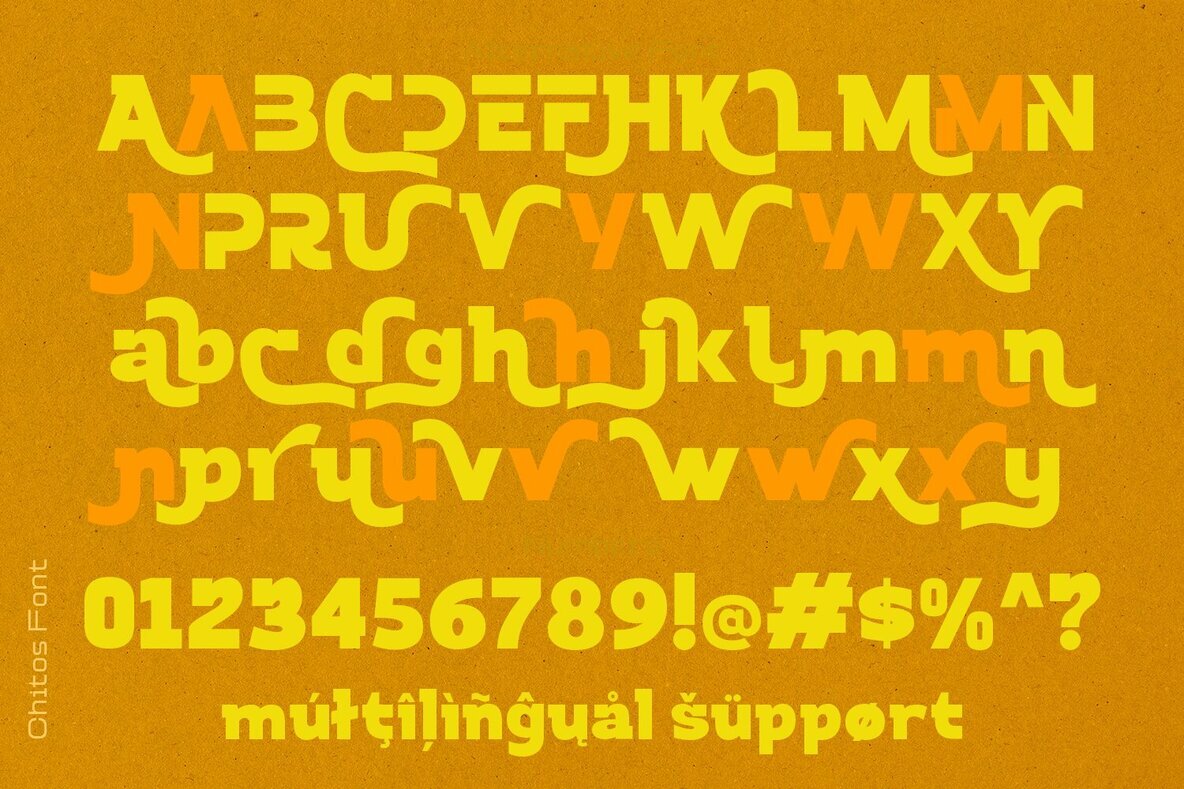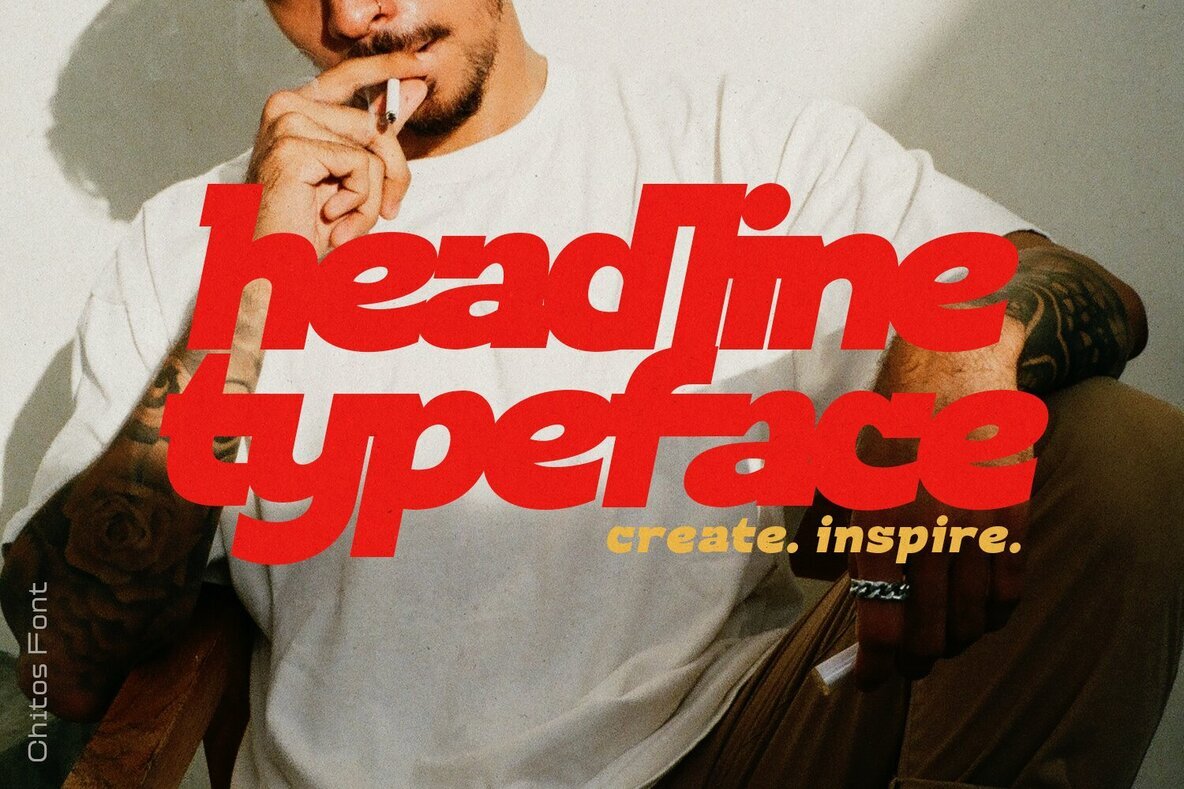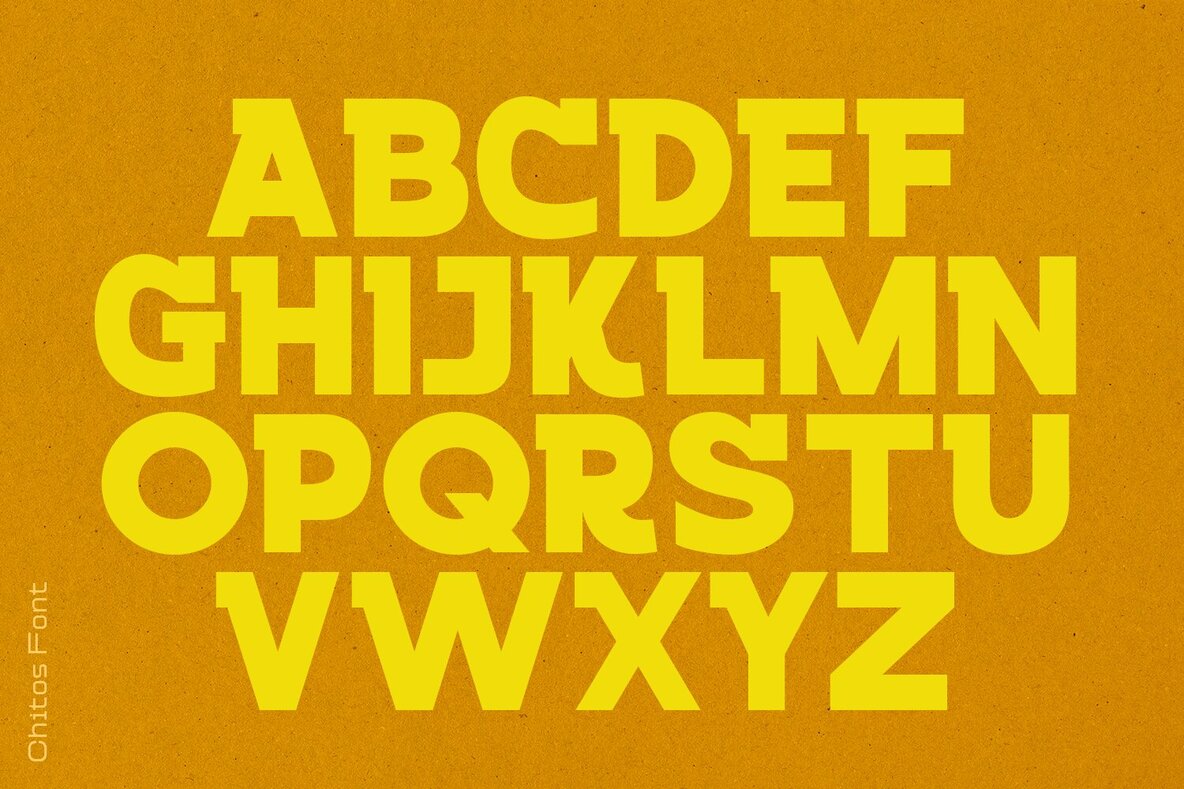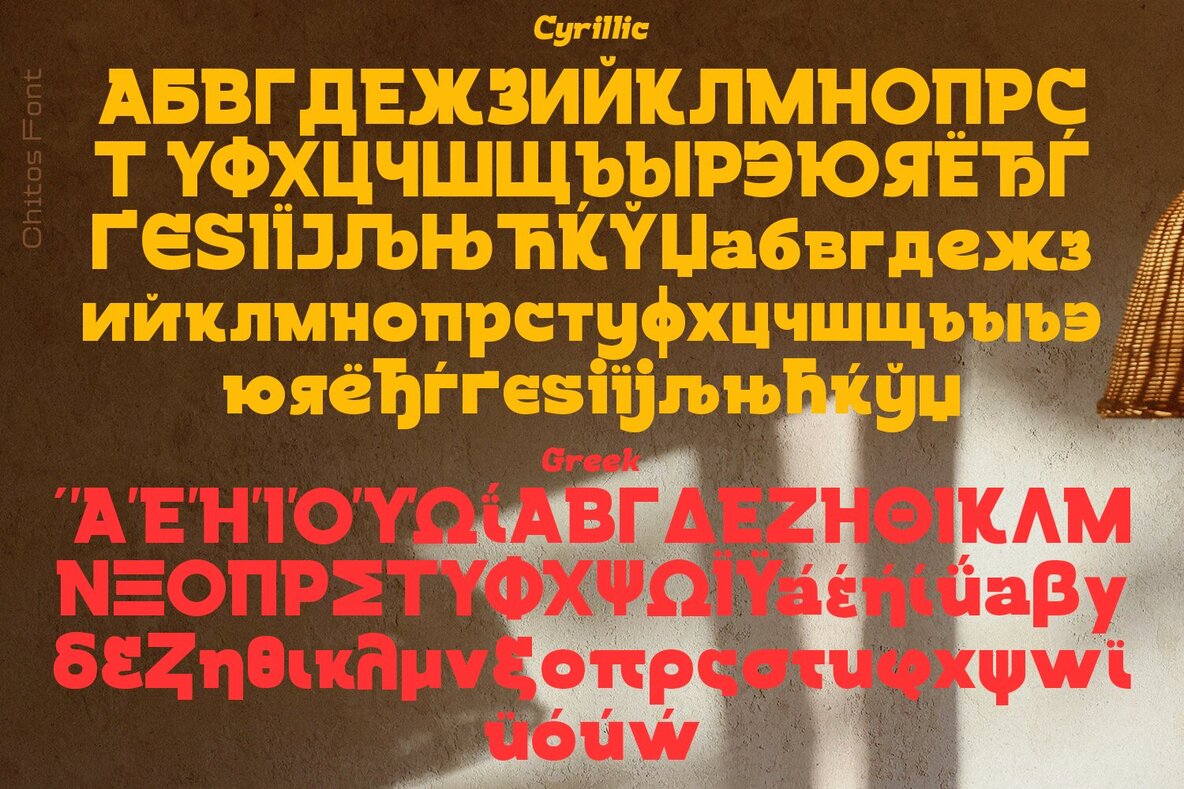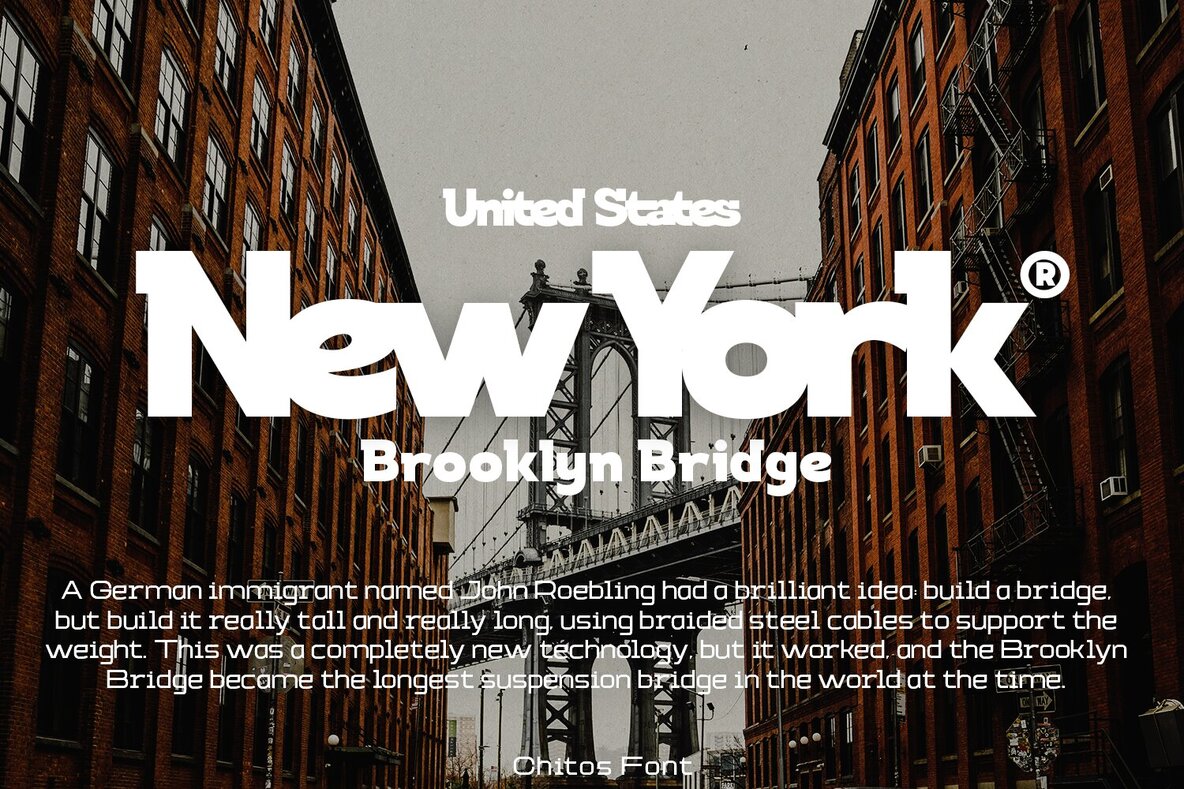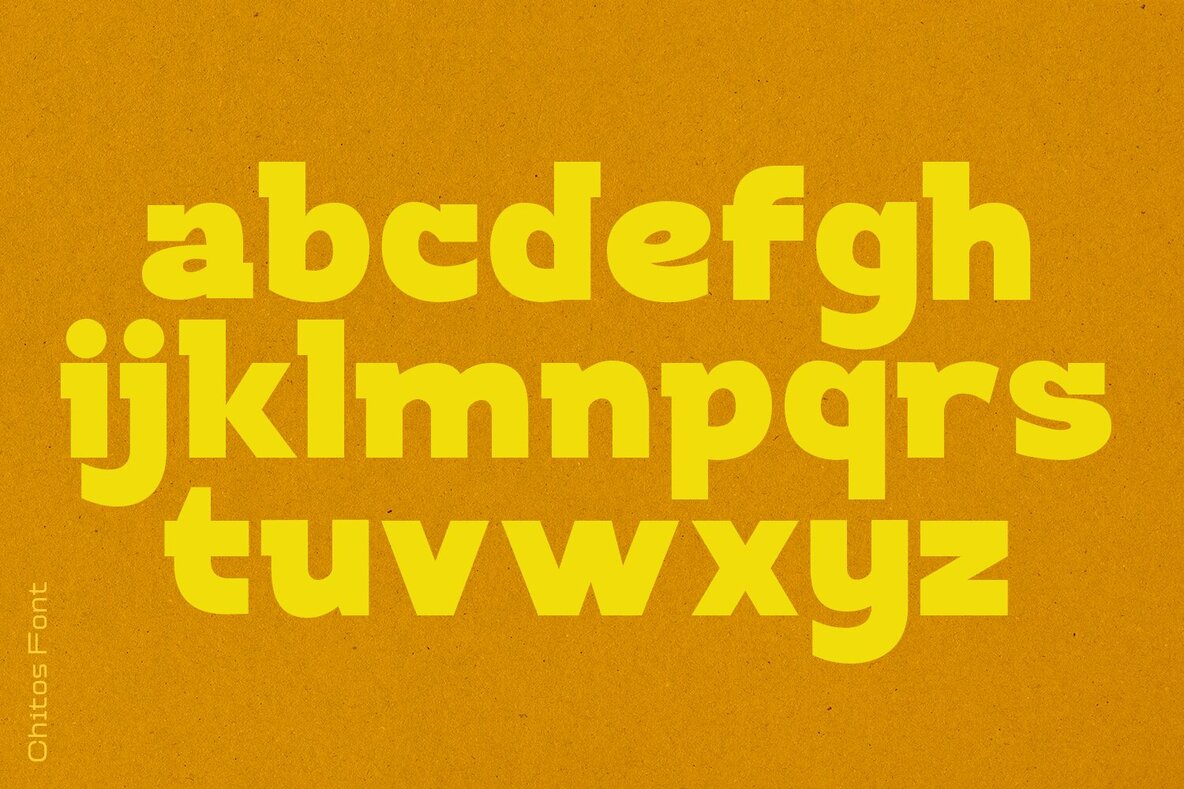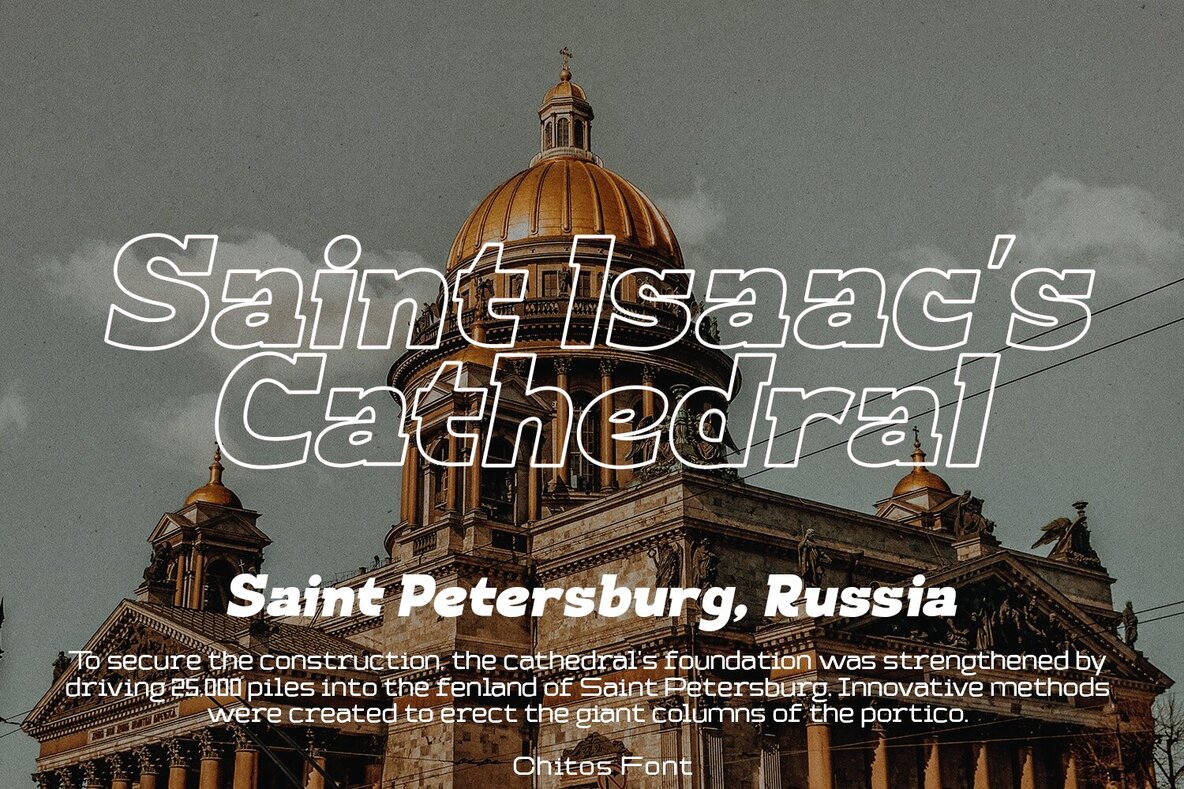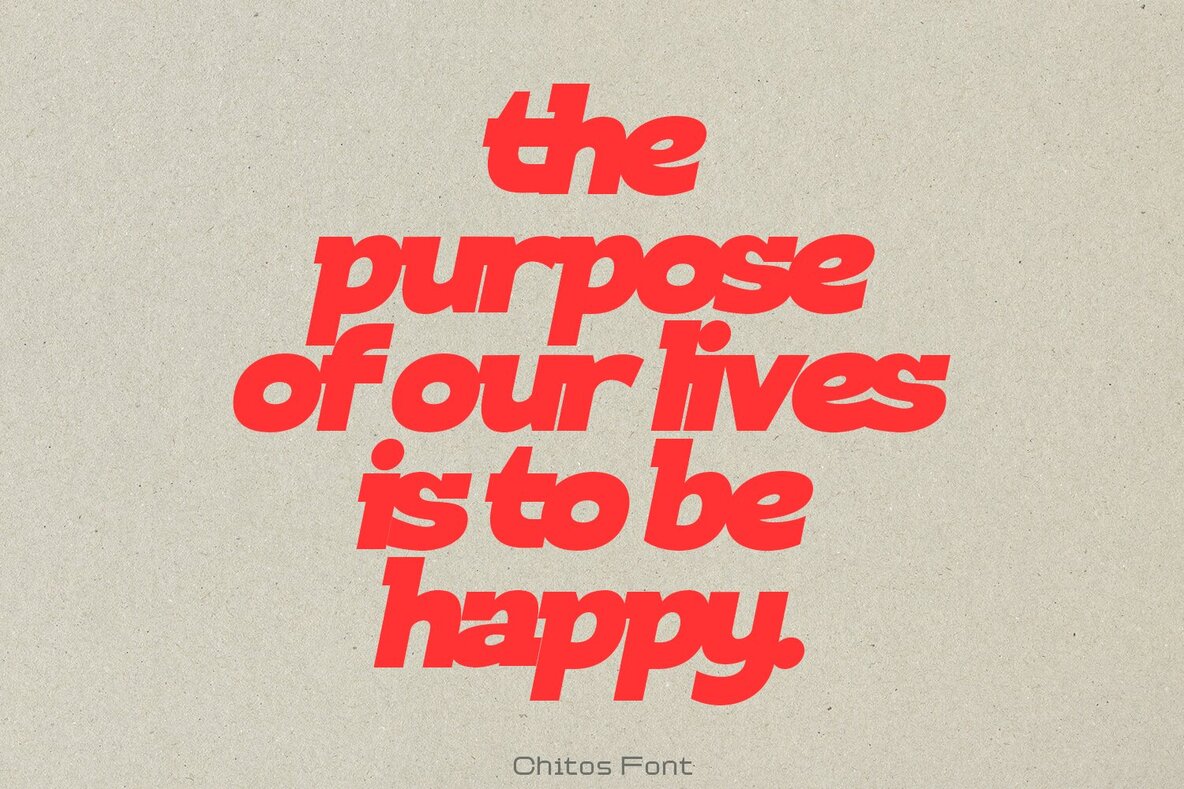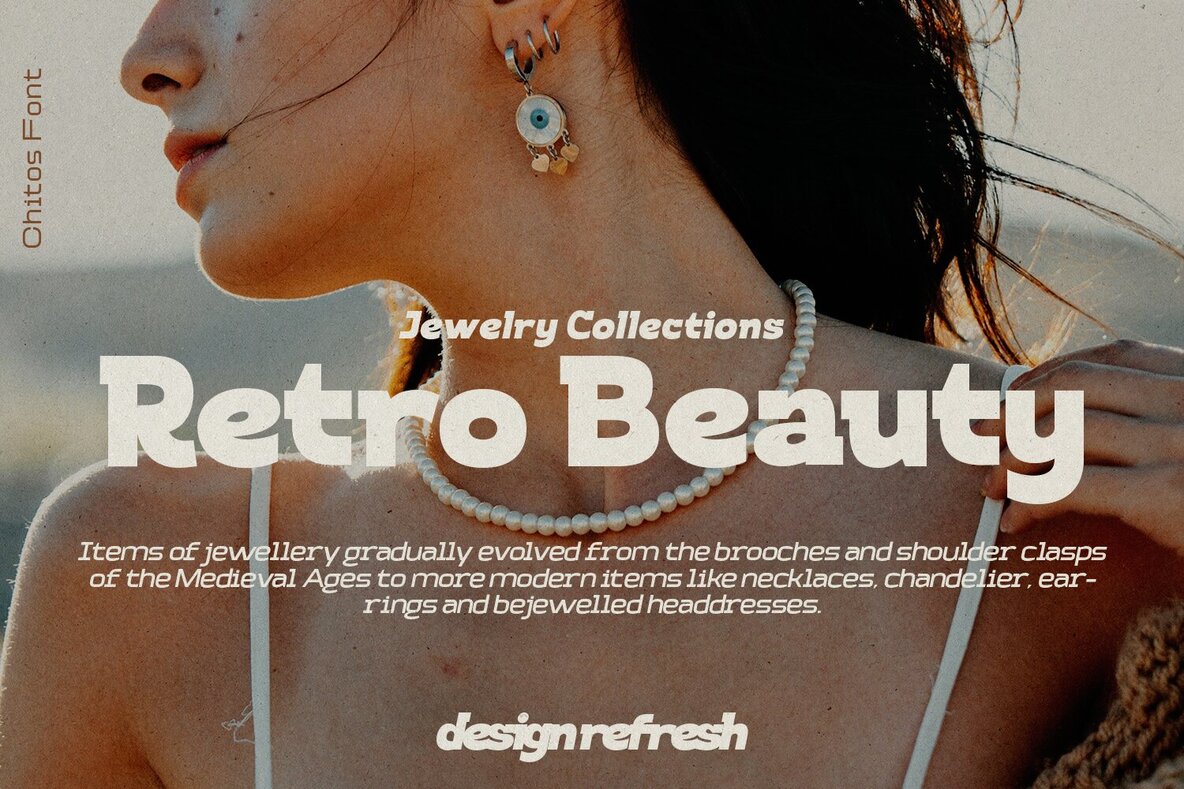
Chitos Font
Chitos is a display font, come with single weight, legible and expressive shapes. A lot of stylish alternates characters will makes this font suitable for your any project design.